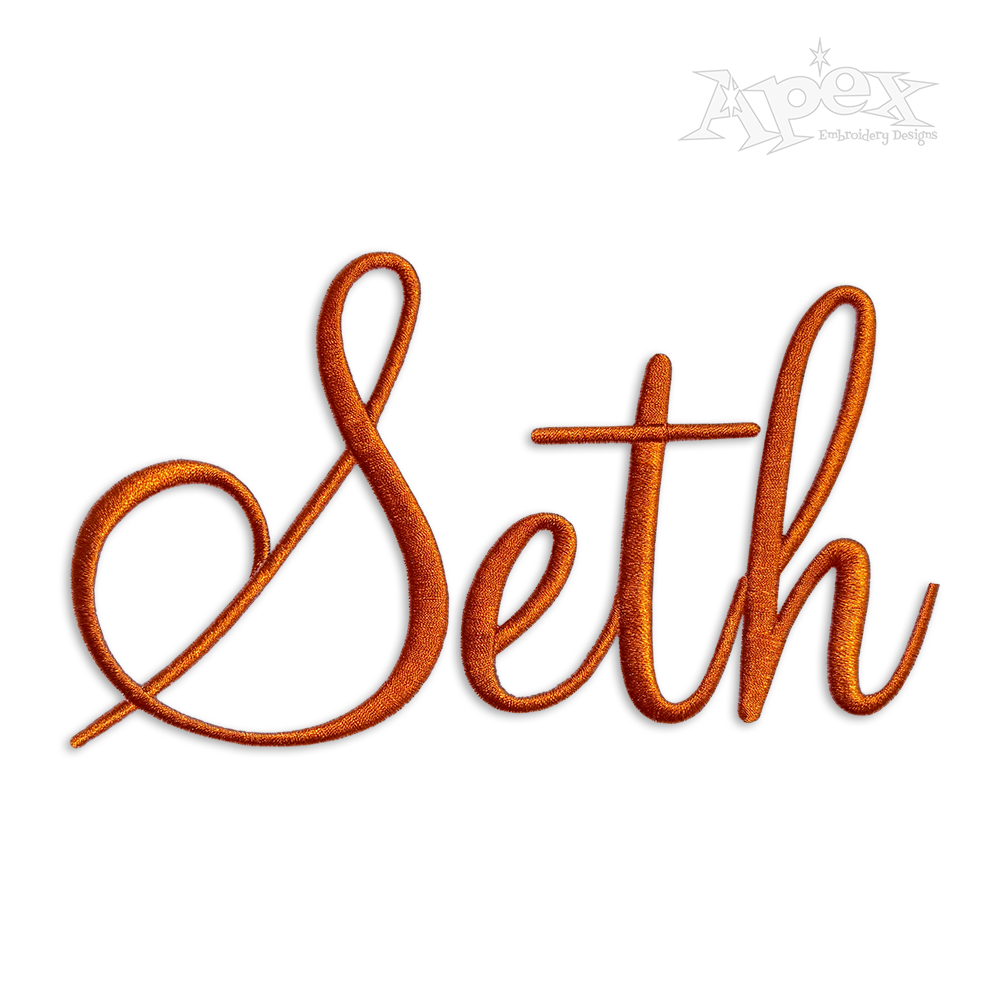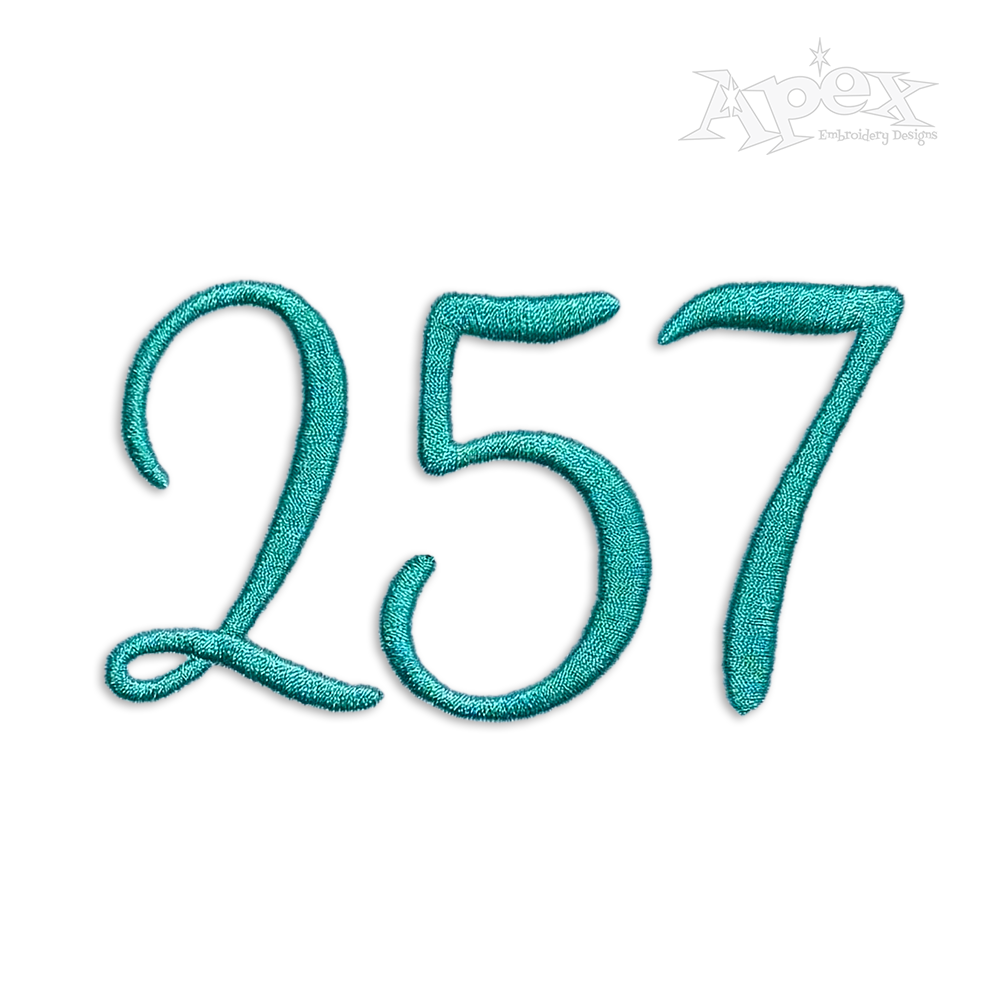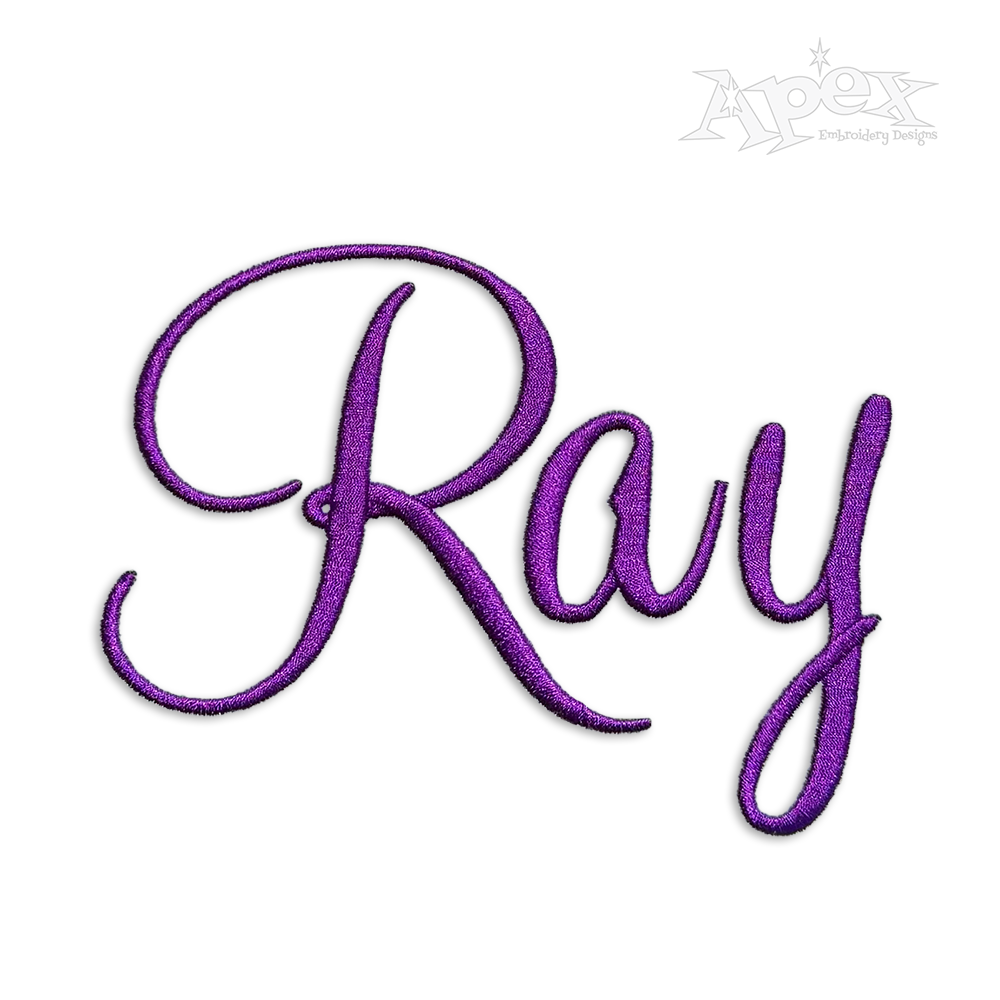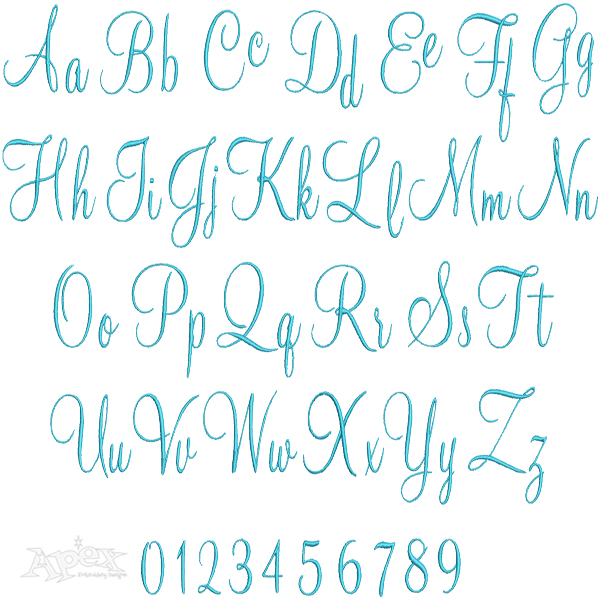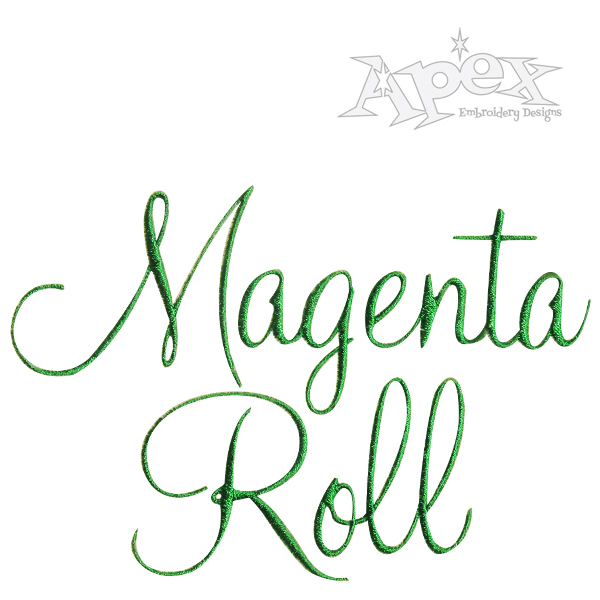
Magenta Embroidery Fonts
Conceived at the intersection of haute couture calligraphy and modern heirloom romance, the Magenta Embroidery Font captures the expressive cadence of an artisan script. As digitizers, we envisioned an alphabet that moves with intentional rhythm—where each ascender arcs like an unhurried ribbon of spun silk and every terminal finishes with a whisper of graceful poise. Magenta breathes vibrant life into plain weaves and plush textiles alike, transforming everyday garments and fine linens into bespoke heirlooms marked by liquid luster and refined poise.
Magenta Craft & Letterform Details
The true mastery of Magenta lies within its digitized interior architecture. Rather than relying on simple automated conversions, our master digitizers sculpted every arch, hairline sweep, and teardrop terminal by hand to work in physical harmony with needle tension and thread sheen. As the satin columns curve, stitch angles shift incrementally to capture and bounce ambient light, bestowing each letter with an iridescent, three-dimensional brilliance.
We have carefully engineered intelligent foundational underlays that brace the fabric grain, minimizing puckering and push-pull distortion even on delicate fibers. Travel paths are seamlessly choreographed inside the letter cores to eliminate unnecessary jump stitches and preserve a clean, soft reverse side. Magenta yields a lavish, supple finish that maintains its structural integrity and heirloom grandeur through countless washes and cherished moments.